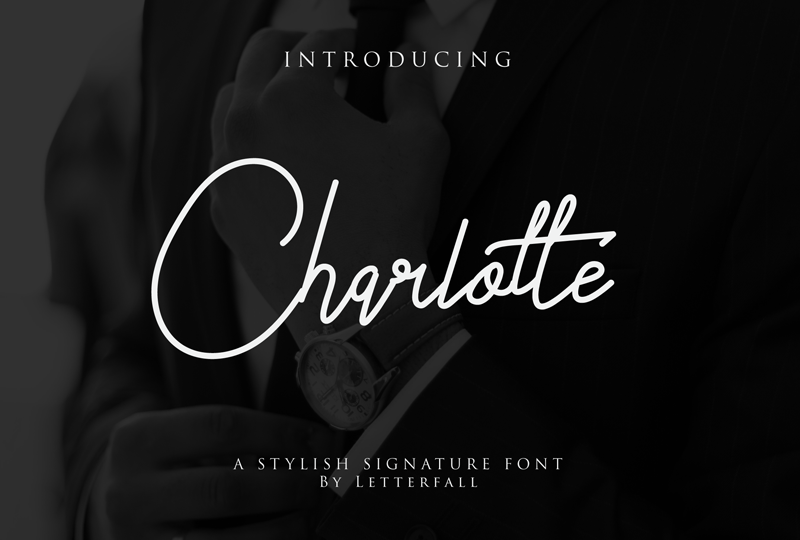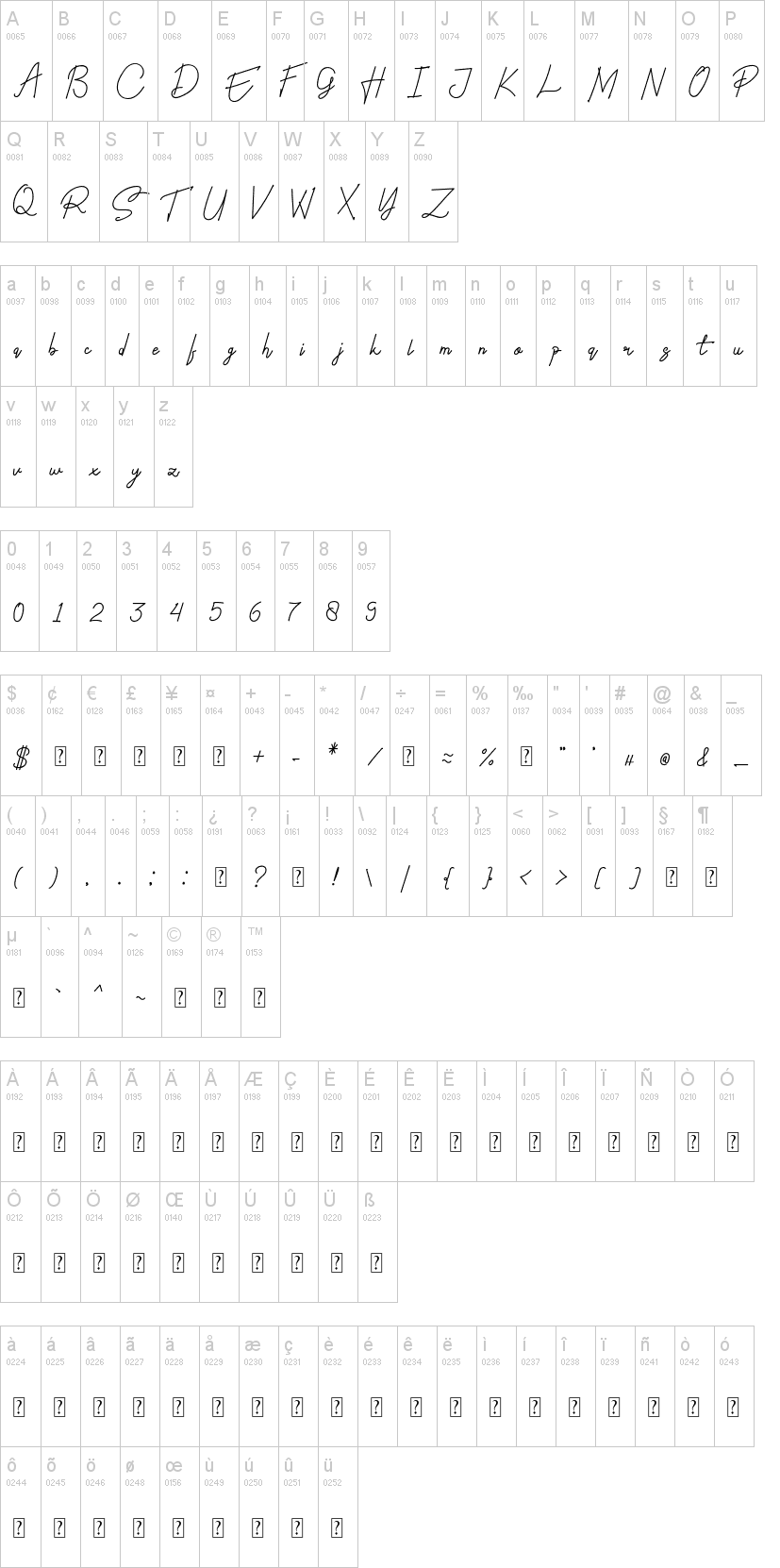
Note of the authorCharlotte is modern script that perfect for signature logo, photography logo, branding logo or anything that youll need,. It is so beautiful and classy, simple but strong.